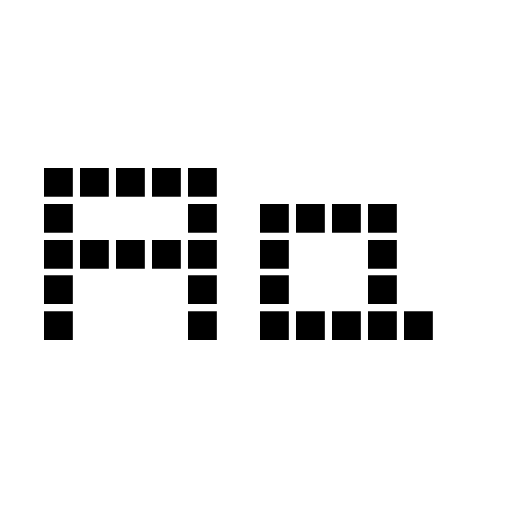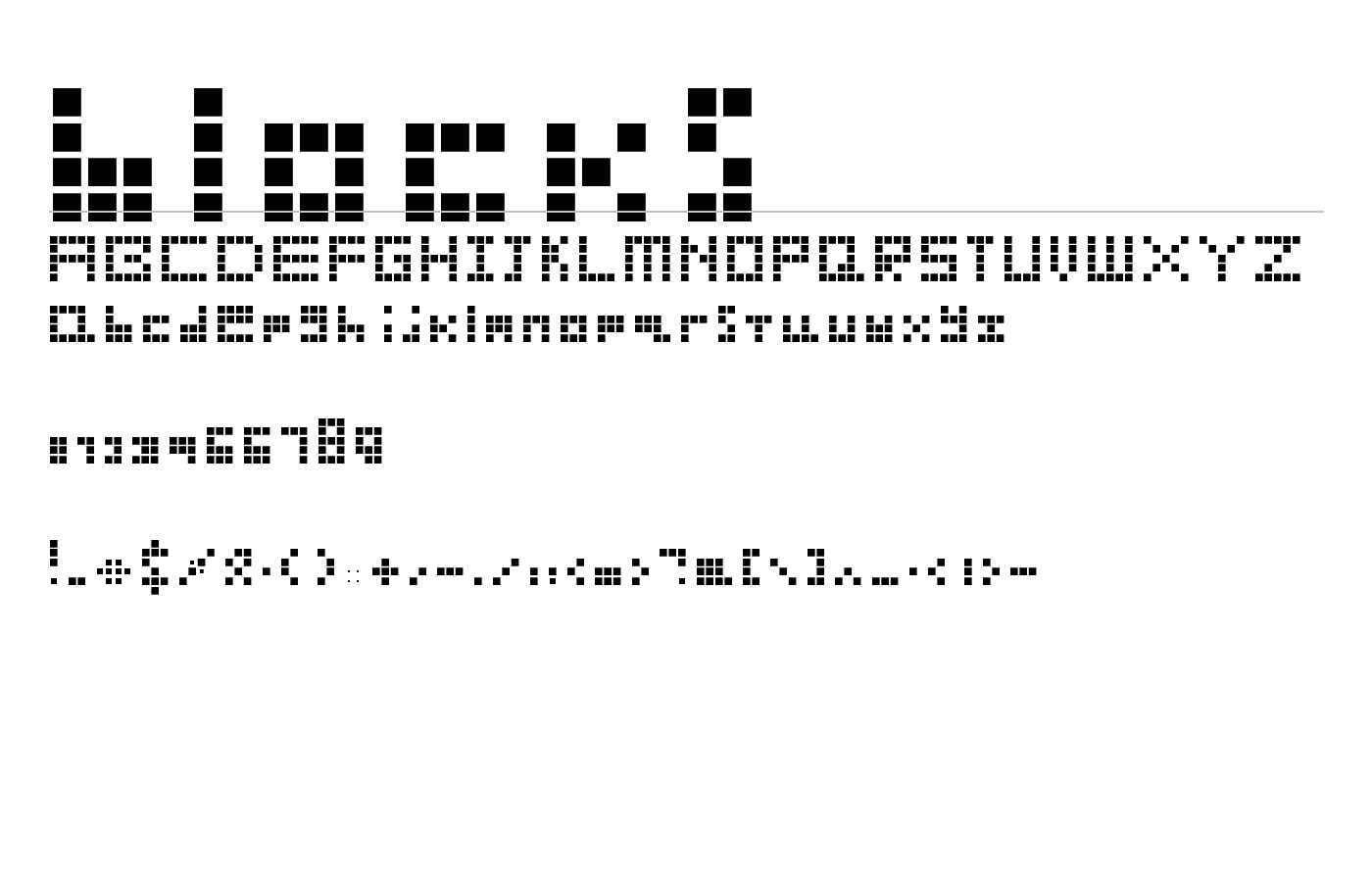
Blocks Font is a bold, geometric sans serif typeface designed entirely from small square pixels, giving it a distinctly digital and retro video game feel. Its monospaced, blocky characters with uniform weight and rigid structure make it ideal for tech-inspired designs, pixel art, or digital displays where a modern, techy vibe is desired. This font works great for logos, posters, and headlines that want to evoke a sense of nostalgia, technology, or futuristic themes.
blocks Font
About blocks Font